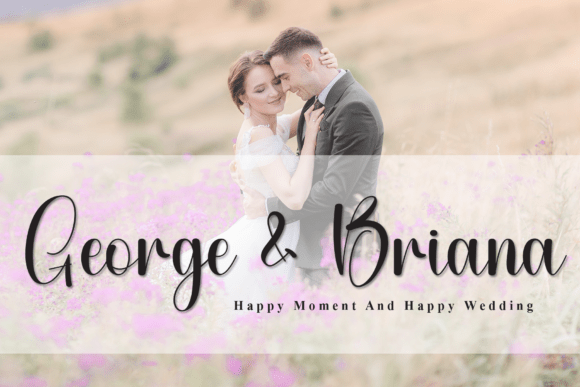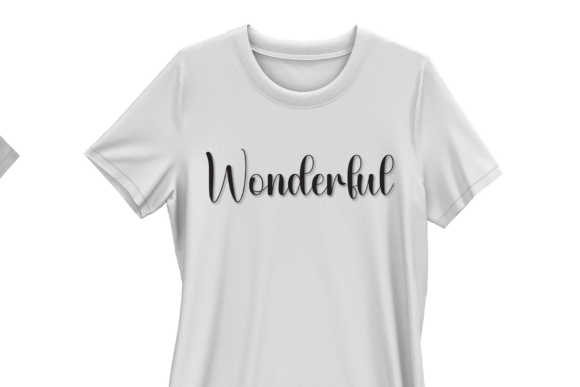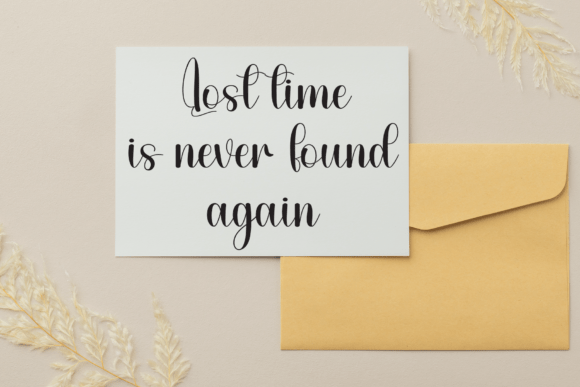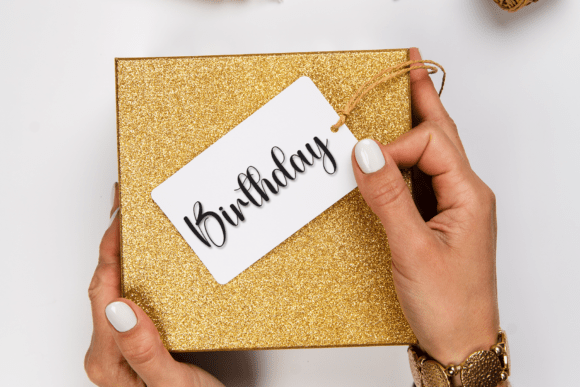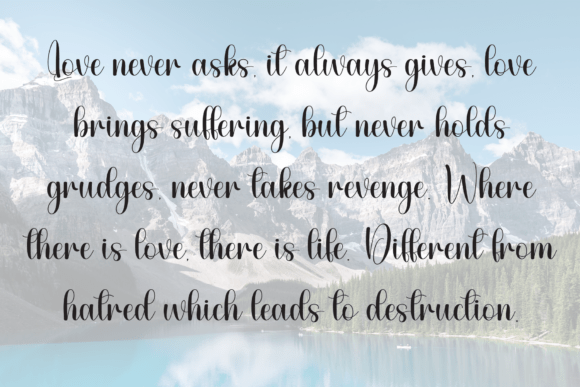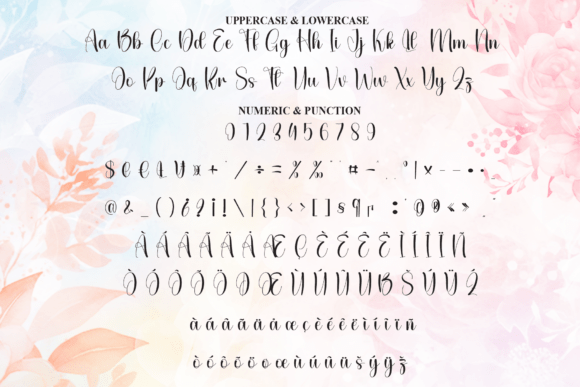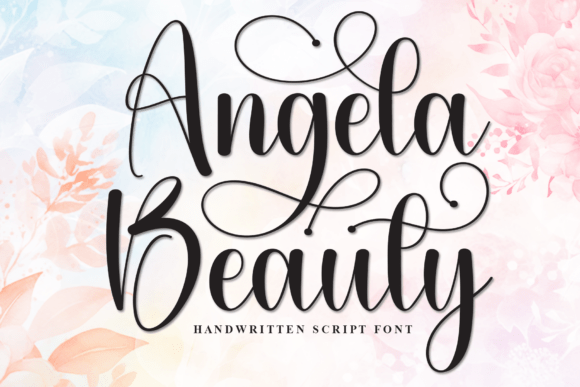
Introducing Angela Beauty Font: Elevate Your Designs with Elegance and Playfulness
In the world of typography, a font can make all the difference in the aesthetic and feel of a design. For those seeking a stylish and versatile script font, look no further than Angela Beauty. This beautiful handwritten script font is designed to capture the essence of elegance and playfulness, making it perfect for a wide range of creative projects.
The Charm of Angela Beauty Font
Angela Beauty Font is a stunning example of modern script typography. With its flowing curves and natural rhythm, this font adds a personal and charming touch to any design. Whether you’re creating invitations, branding materials, or social media graphics, Angela Beauty brings a level of sophistication and warmth that is sure to captivate your audience.
One of the standout features of Angela Beauty is its unique blend of elegance and playfulness. The font’s graceful design makes it perfect for projects that require a touch of luxury, while its playful undertones add a sense of fun and creativity. This versatility makes Angela Beauty an excellent choice for designers and crafters looking to elevate their work.
Key Features of Angela Beauty Font
- Handwritten Script Font: Angela Beauty is a carefully crafted handwritten script font that exudes personality and charm.
- Elegant and Playful: The font’s flowing curves and natural rhythm strike the perfect balance between elegance and playfulness.
- Versatile: Angela Beauty is suitable for a wide range of design projects, from invitations and branding to social media graphics.
- Personal Touch: The font’s unique character adds a personal touch to any design, making it perfect for projects that require a human touch.
Uses for Angela Beauty Font
Angela Beauty Font is an incredibly versatile font that can be used in a variety of design projects. Here are just a few examples:
- Invitations: Add a touch of elegance and sophistication to your wedding invitations, birthday party invites, or other special occasion cards.
- Branding: Use Angela Beauty to create a unique and memorable brand identity for your business or product.
- Social Media Graphics: Elevate your social media presence with eye-catching graphics that showcase the beauty of Angela Beauty Font.
- Stationery: Create custom stationery, such as notebooks, journals, or letterheads, that reflect your personal style.
Tips for Using Angela Beauty Font
To get the most out of Angela Beauty Font, here are a few tips to keep in mind:
- Pair with contrasting fonts: Combine Angela Beauty with a clean, sans-serif font to create visual interest and contrast.
- Experiment with colors: Try pairing Angela Beauty with a range of colors to find the perfect combination for your design.
- Pay attention to spacing: Make sure to adjust the spacing between letters and words to ensure a natural, flowing look.
Angela Beauty Font is a stunning script font that is sure to elevate your designs with its elegant and playful charm. With its versatility, unique character, and flowing curves, this font is perfect for designers and crafters looking to add a personal touch to their work. Whether you’re creating invitations, branding materials, or social media graphics, Angela Beauty is an excellent choice for anyone seeking to make a lasting impression.